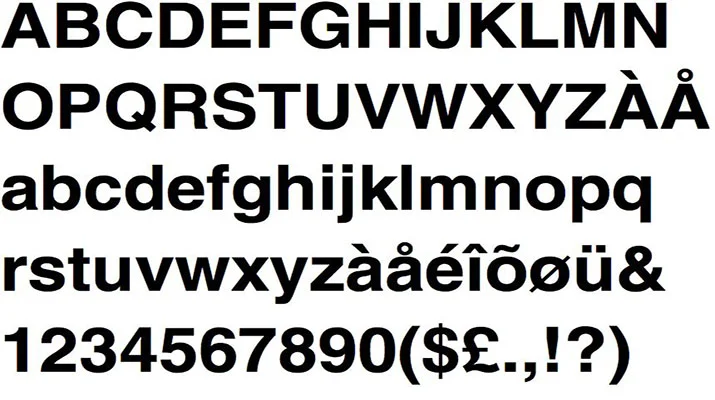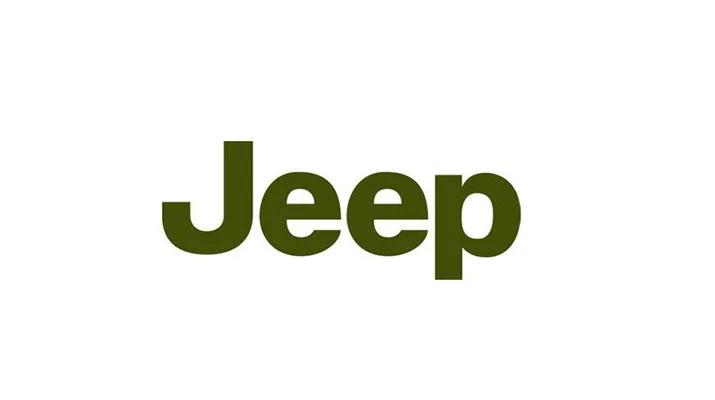
Jeep Font: Jeep is an American automobile marque, now owned by multi-national corporation Stellantis. Owned by the automotive company Chrysler brand, when it was founded.
Jeep cars have been used for the transportation of the American army since World War II. And now the Jeep is known for its new generation and extremely modern SUVs.
The font used to design the Jeep Logo is said to be the Helvetica Bold font. It is a modern display sans serif typeface that is ideal for branding materials, poster design, t-shirts, and more.
This font is available in a single style along with True Type features. This style contains 2197 glyphs and 2 ligatures. Additionally, it also supports 132 multilingual languages.
This modern typeface is perfect for various web designs. It can be used for creating exceptional text designs. Moreover, it is also ideal for making captivating social media posts, headers, titles, banners, flyers, wall murals, headings, stylish names, social media posters, and paragraph titles.
Additionally, you can select it for t-shirts, brochure layouts, pants, social media posters, labels, branding, and other clothing designs.